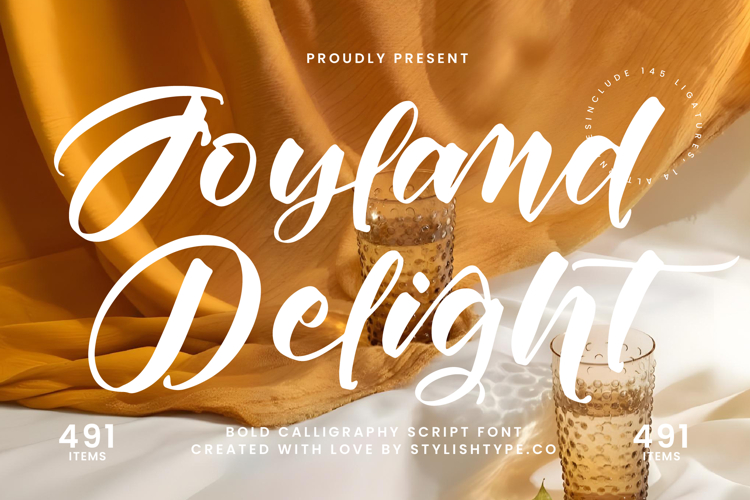
Joyland Delight - Bold Calligraphy Script
Unleash an unparalleled level of visual sophistication with Font Joyland Delight - Bold Calligraphy Script Script. This exquisite typeface masterfully blends the classic elegance of calligraphy with a distinctly modern, bold presence. Its flowing, interconnected letterforms exude a vibrant energy, creating an immediate, expressive impression that captures attention. Perfect for designs demanding both charm and gravitas, it provides a compelling aesthetic foundation.
Elevate your creative projects with the unparalleled versatility offered by Font Joyland Delight - Bold Calligraphy Script Script. Featuring an incredible array of extensive ligatures and alternative characters, this font empowers designers to craft truly unique and bespoke typographic compositions. These rich OpenType features allow for seamless customization, ensuring every headline and display text possesses a distinct, handcrafted aesthetic and fluid grace that stands out.
Expand your brand's reach and connect with diverse audiences globally. With its extensive multilingual support, Font Joyland Delight - Bold Calligraphy Script Script adapts seamlessly across global markets, making it incredibly versatile for international projects. This crucial capability ensures your message resonates with authenticity and elegance, regardless of language, positioning your designs for worldwide impact and appeal.